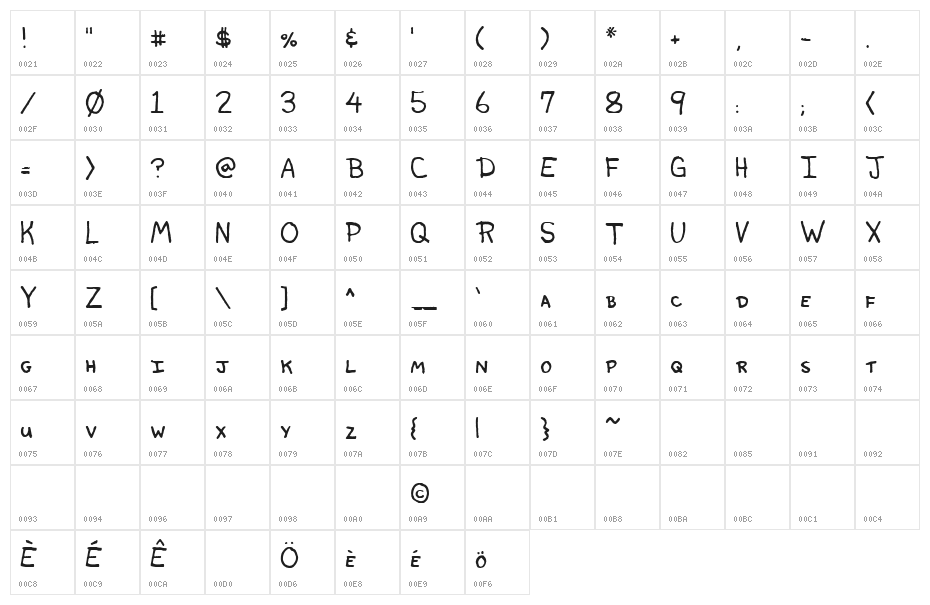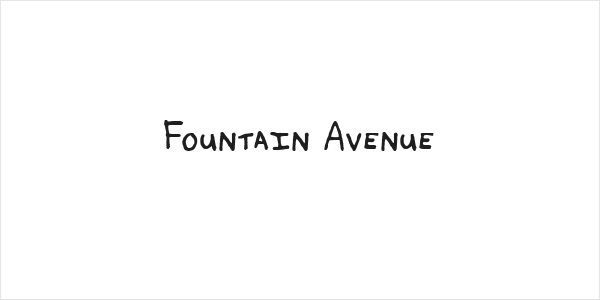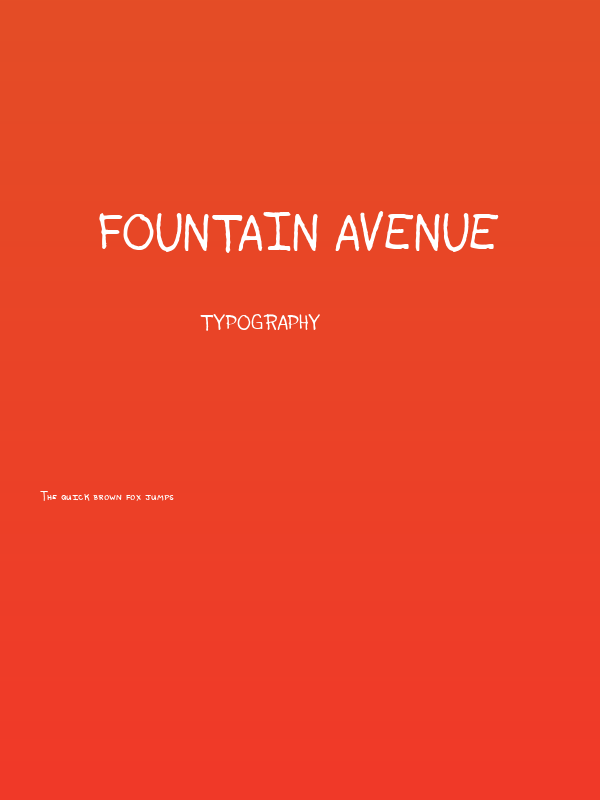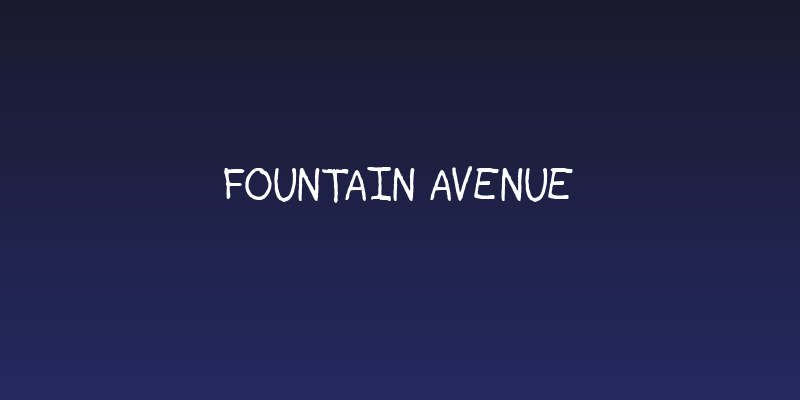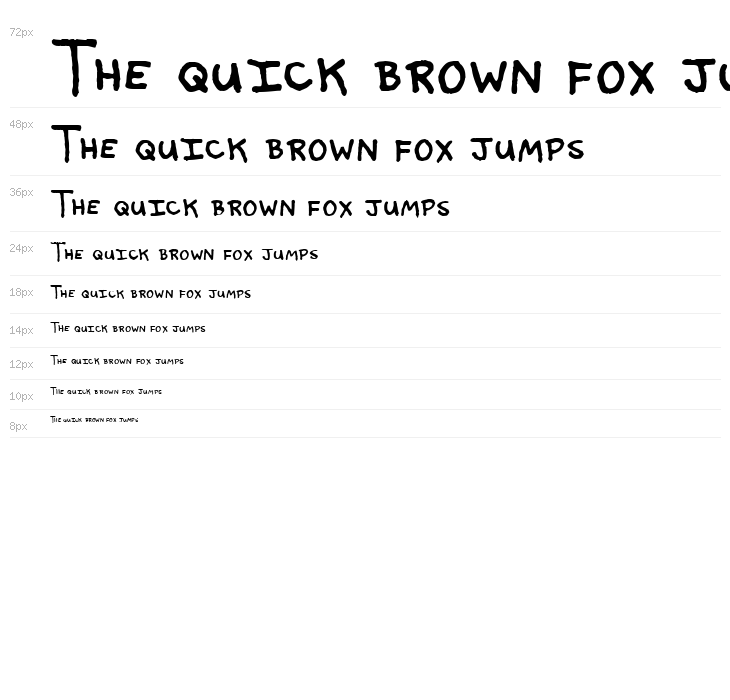
Fountain Avenue Font
Fountain Avenue Description
This font features a playful and informal handwritten style, characterized by its irregular strokes and slightly uneven baseline. The letters have a casual, organic feel, with rounded edges and varying thickness that give it a dynamic and lively appearance. The uppercase and lowercase letters maintain a consistent style, while the numerals and special characters blend seamlessly with the overall design. This font's unique charm makes it suitable for projects that require a personal touch or a creative flair.